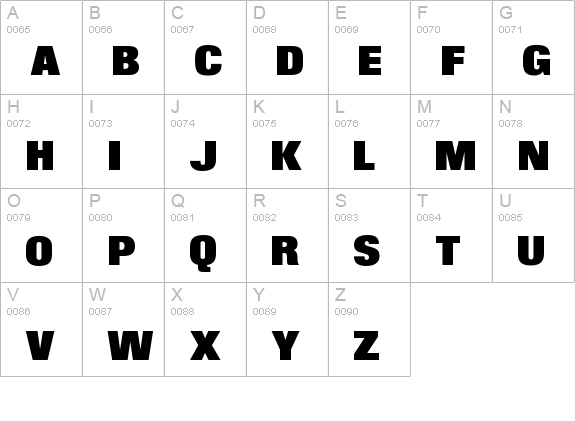
Folio ICG XBold Font Details
Folio ICG XBold is a bold and commanding typeface that exudes confidence and modernity. With its strong, thick strokes and clean lines, this font is perfect for making a bold statement in headlines, titles, and other display settings. The sharp angles and geometric shapes give Folio ICG XBold a contemporary feel, while still maintaining a sense of professionalism and sophistication. What sets Folio ICG XBold apart is that it is freely available to download at FontsMarket.com. This means you can easily access this high-quality font for your design projects without any cost. Whether you're designing a website, creating a poster, or crafting a logo, Folio ICG XBold is a versatile and impactful choice that will elevate your designs to the next level. Make a bold impression with Folio ICG XBold today!